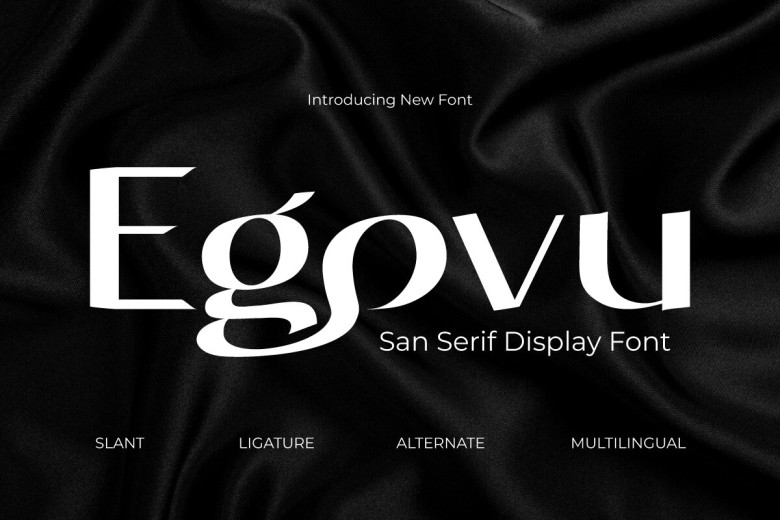
Egovu Font
Egovu stands out as an attractive display typeface sans serif font with distinctive features that stand out. Egovu’s striking appearance can complete various tasks in visual design successfully and makes for an excellent addition. What sets Egovu apart are its extraordinary capabilities.
Egovu offers you the freedom to express yourself freely with its variety of ligatures and options, giving every project a personalized flair using different combinations of letters. Knowing that reaching a wide target audience is crucial, Egovu can be used in multiple languages for optimal communication purposes.
Egovu Sans Serif Font